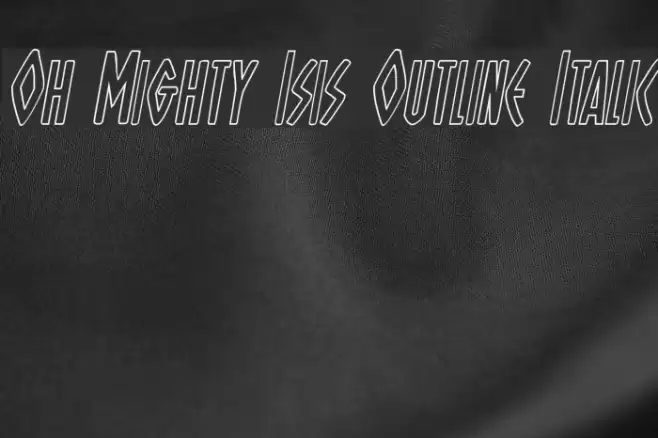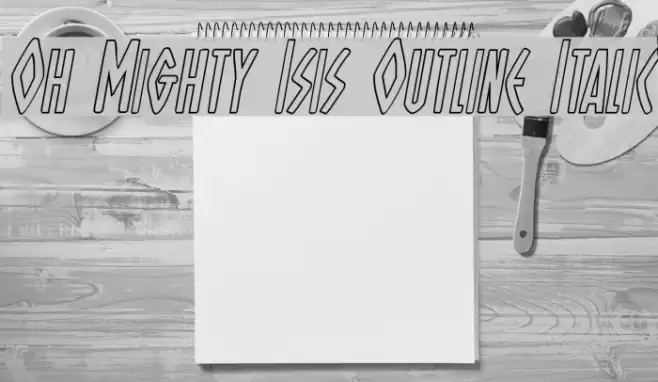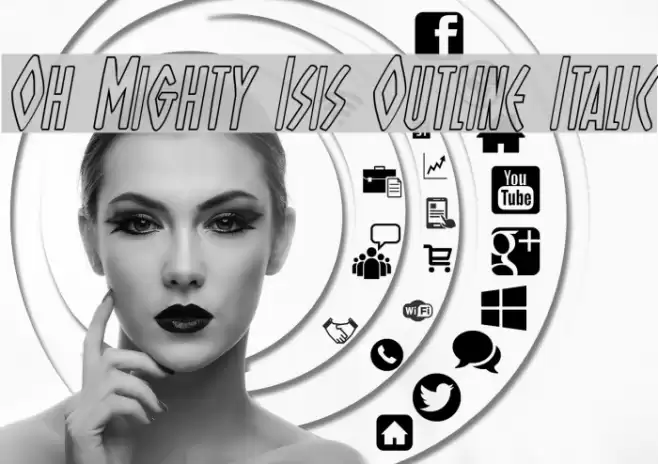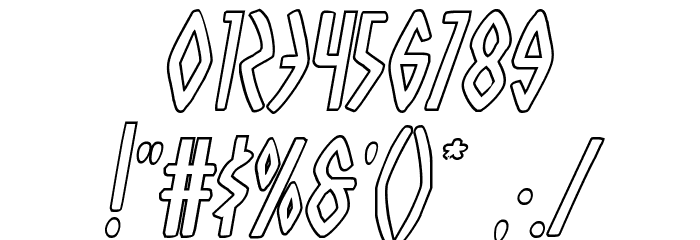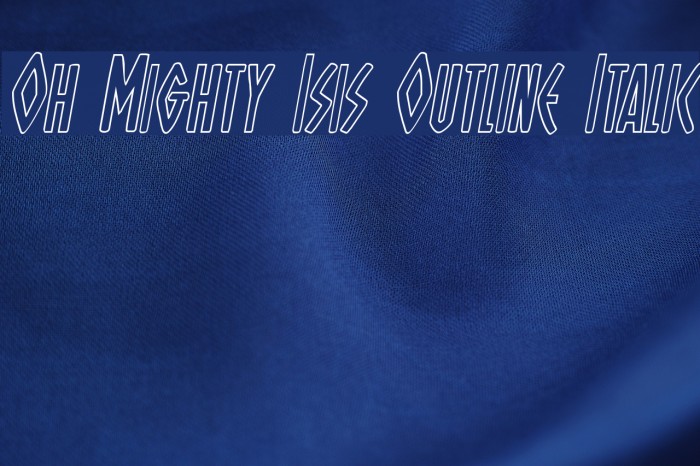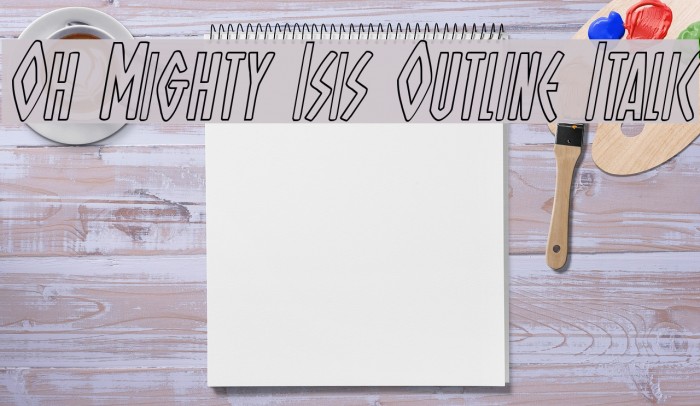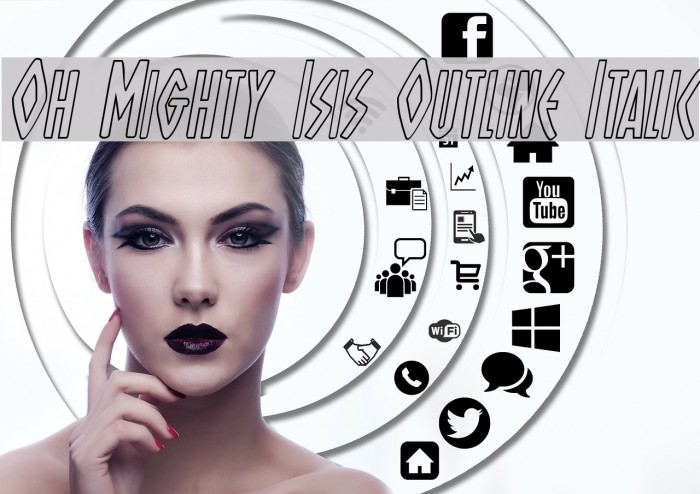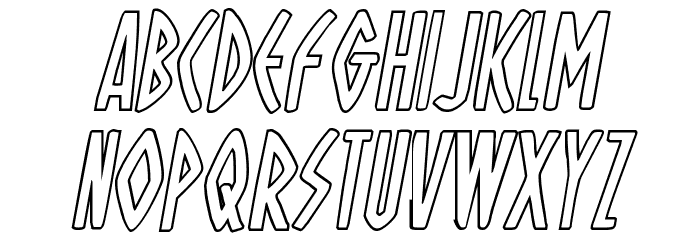
Oh Mighty Isis Outline Italic Font
Oh Mighty Isis Outline Italic Description
This font features a bold, italicized outline style that gives it a dynamic and energetic appearance. The letters are elongated and slightly slanted, creating a sense of movement and urgency. The outline design adds a layer of depth, making the characters stand out against various backgrounds. This font is particularly eye-catching and suitable for designs that require a strong visual impact. The uppercase and lowercase letters maintain a consistent style, while the numbers and special characters complement the overall aesthetic. The font's unique outline and italic characteristics make it ideal for creative projects.
A bold, italicized outline font with dynamic and energetic appeal from Uncategorized fonts.
- Proposed Projects: Ideal for posters, headlines, logos, and any design requiring a strong visual impact.